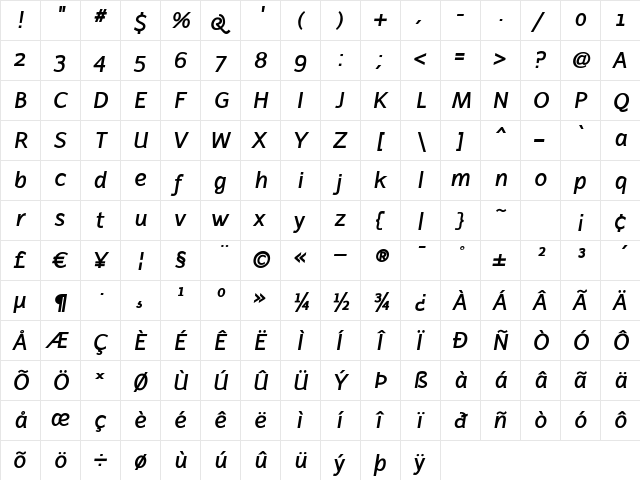
Latinaires Bold Italic Font Preview
Design Context for Latinaires Typeface
Latinaires takes a measured approach to typography — its balanced proportions and neutral character make it a reliable workhorse for both digital and print work. Its italic angle brings a sense of urgency and motion to the letterforms. Its bold stroke weight gives it real presence on the page.
Pro Tip: Try Latinaires for annotation and caption copy alongside an upright companion — the contrast in angle creates a dynamic but ordered typographic system.